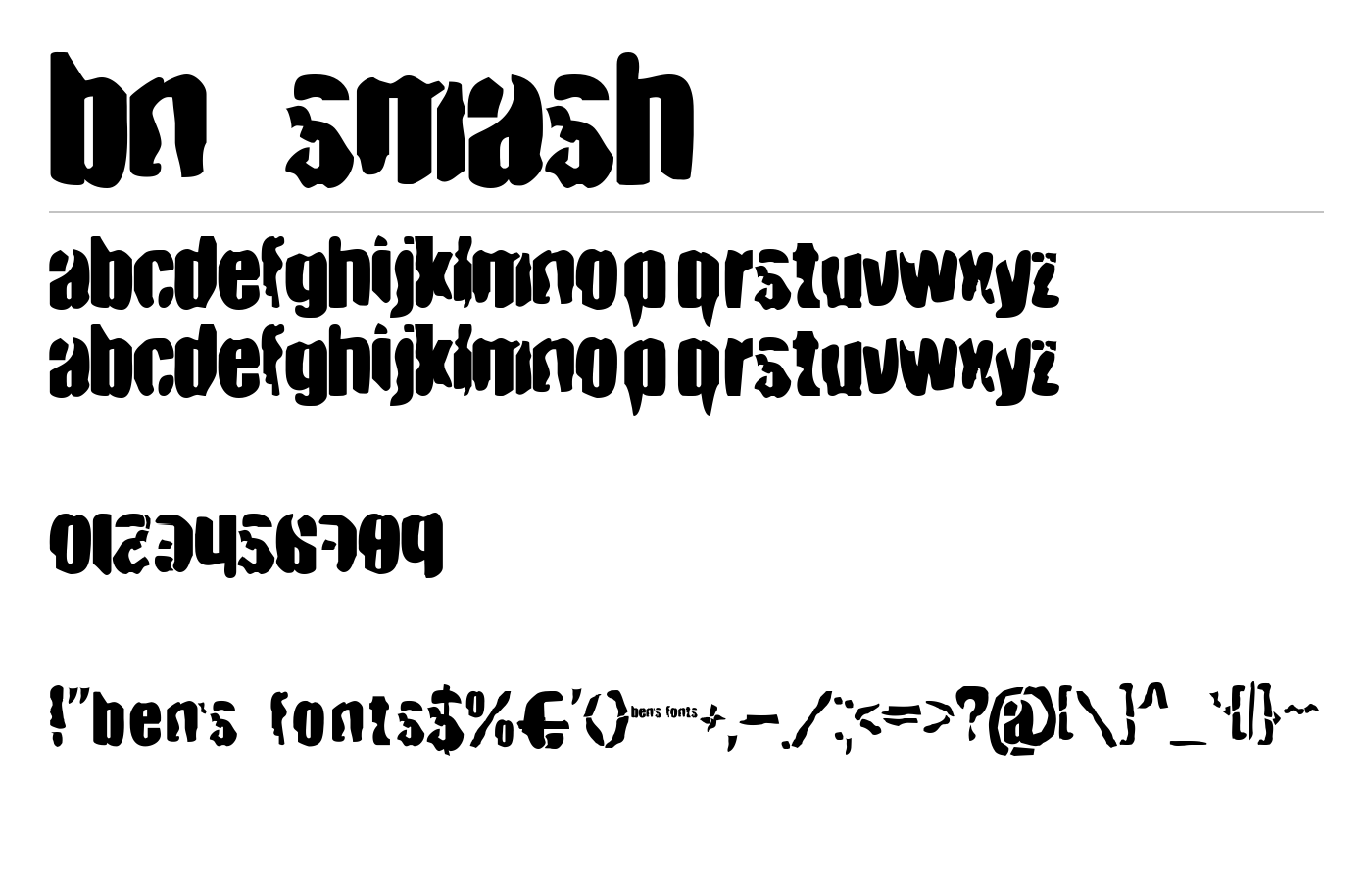
BN Smash is a bold, condensed display font with a strong, heavy presence and high stroke contrast that creates a dramatic, broken stencil effect. Its quirky shapes and irregular edges bring a raw, urban energy that suits edgy branding, posters, and creative headlines where impact and attitude matter. This font works best when used large and loud, adding a rebellious, graffiti-like style to modern designs.
BN Smash Font
About BN Smash Font